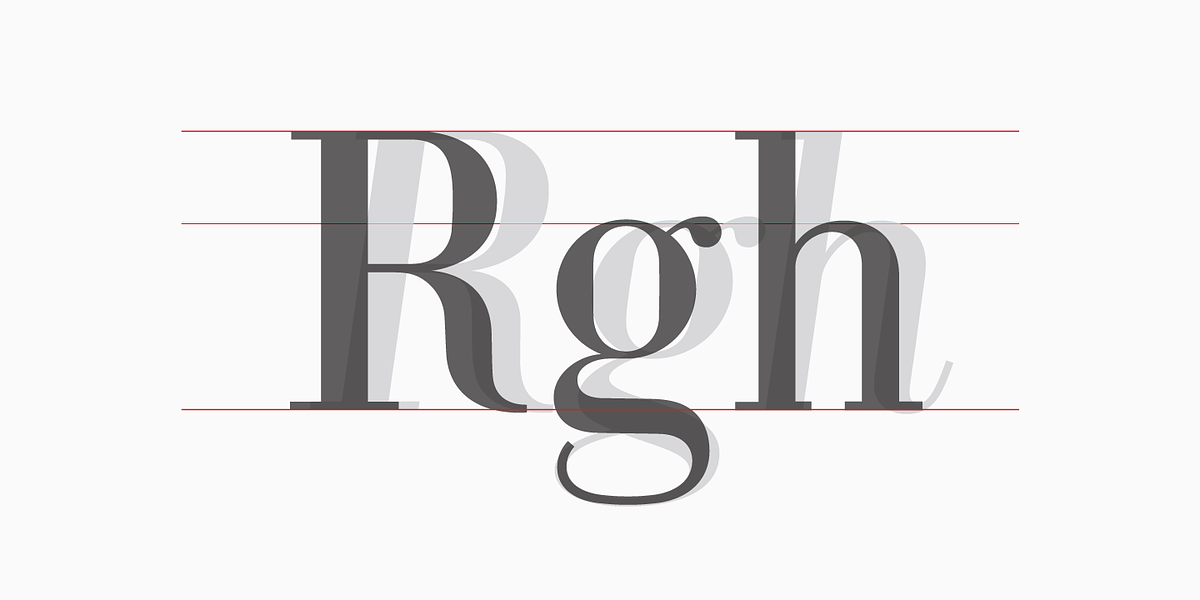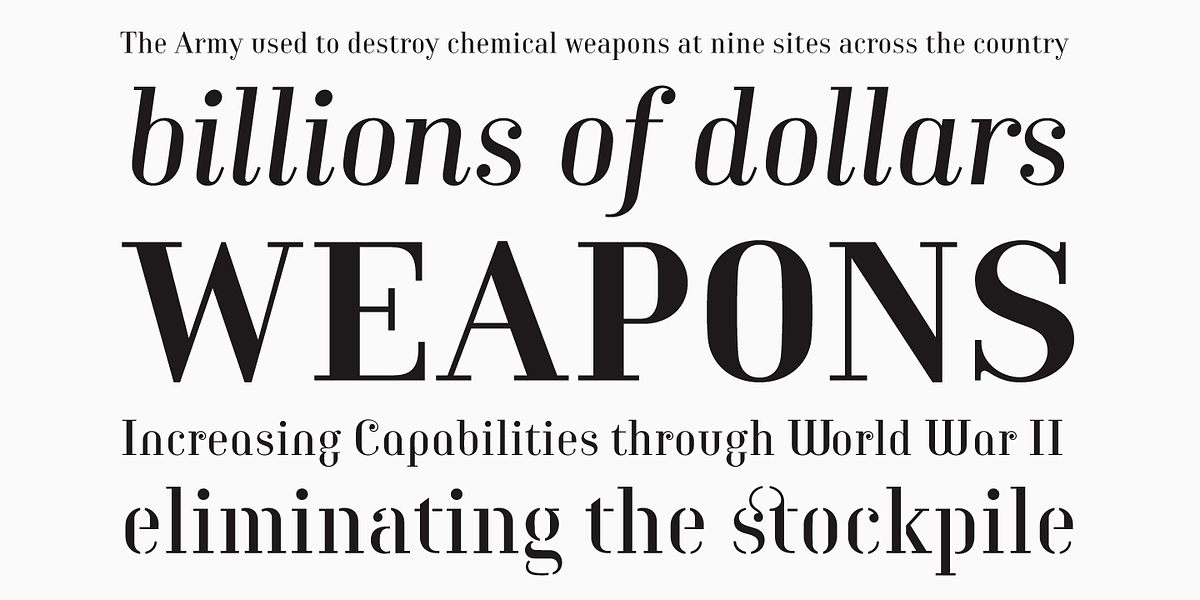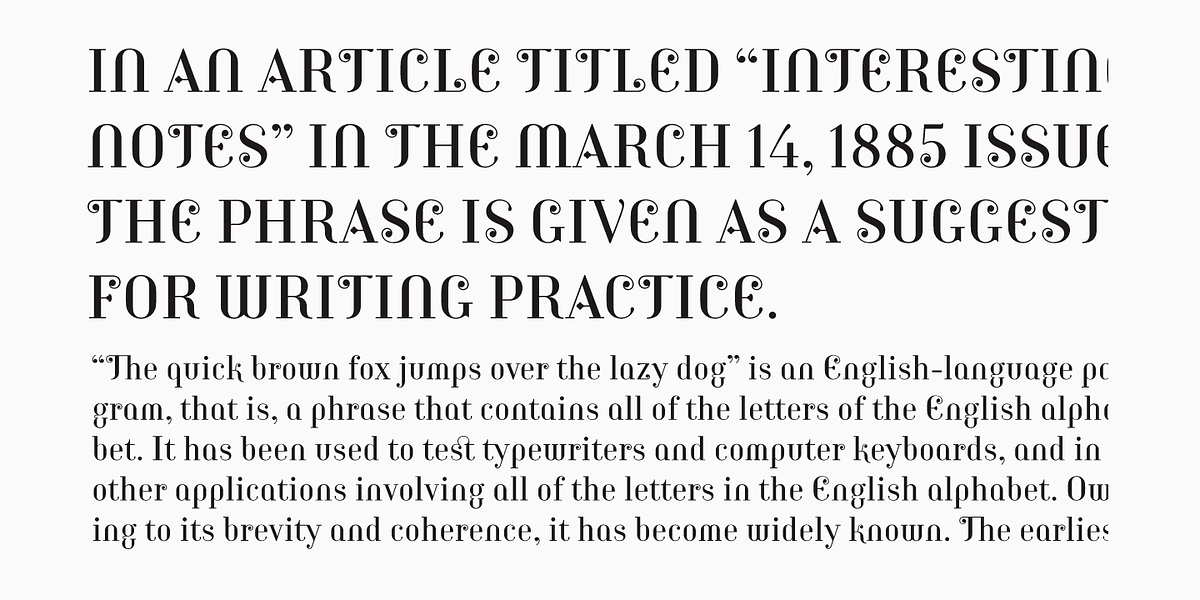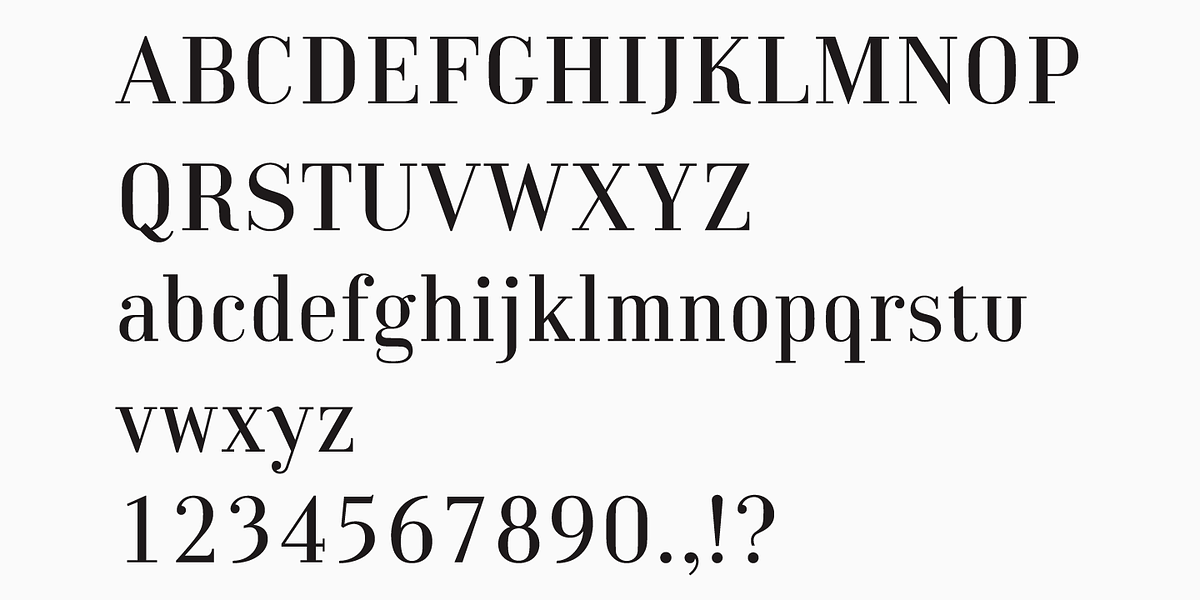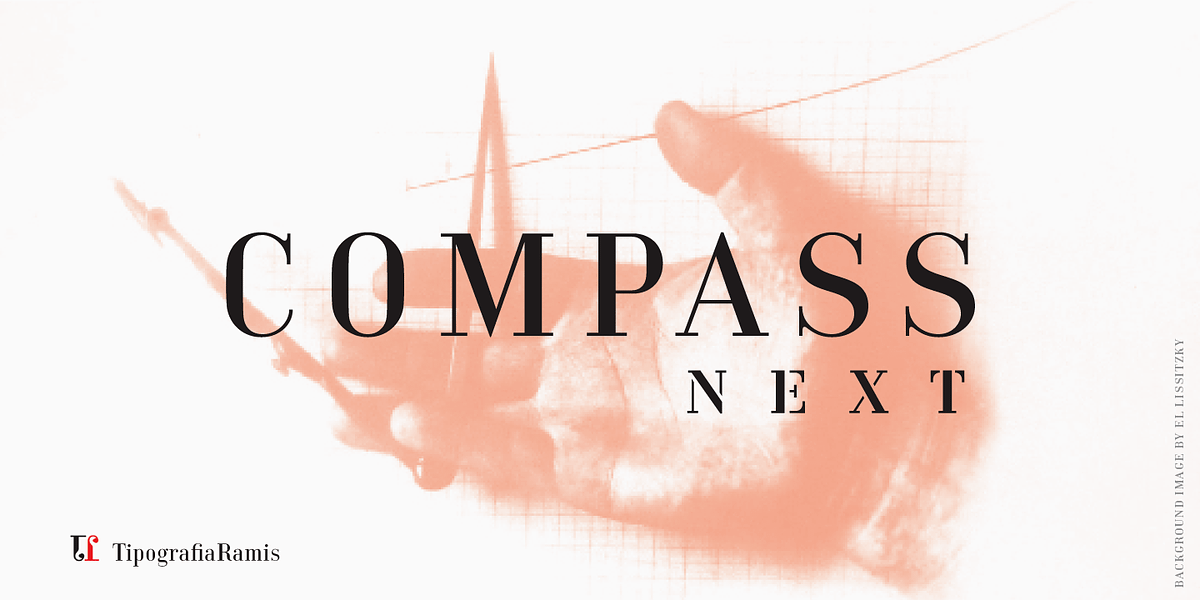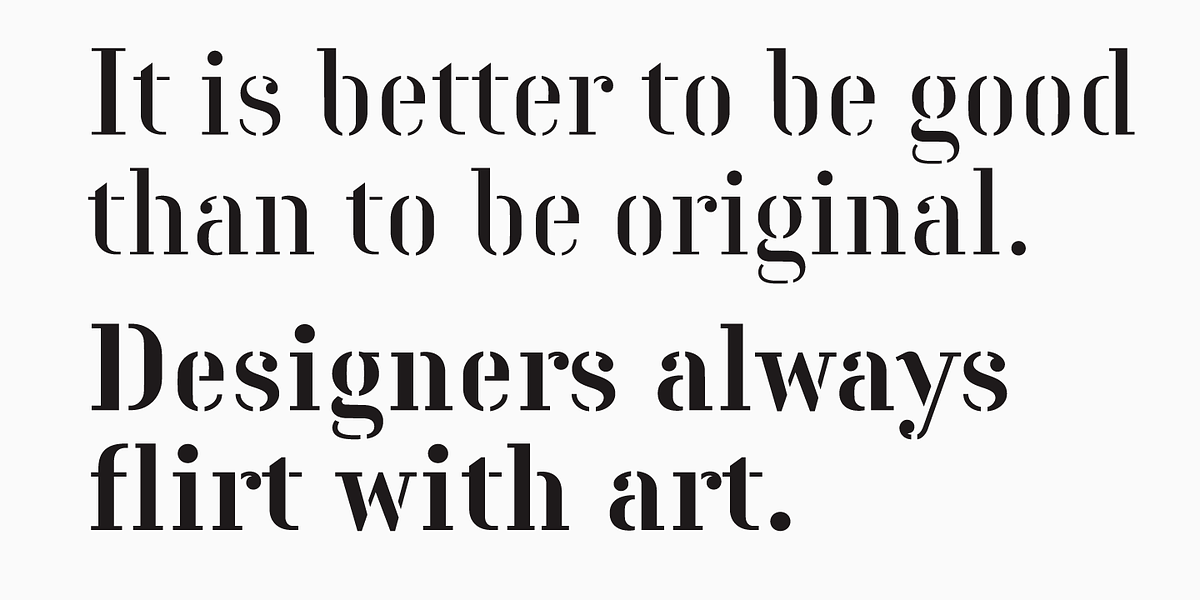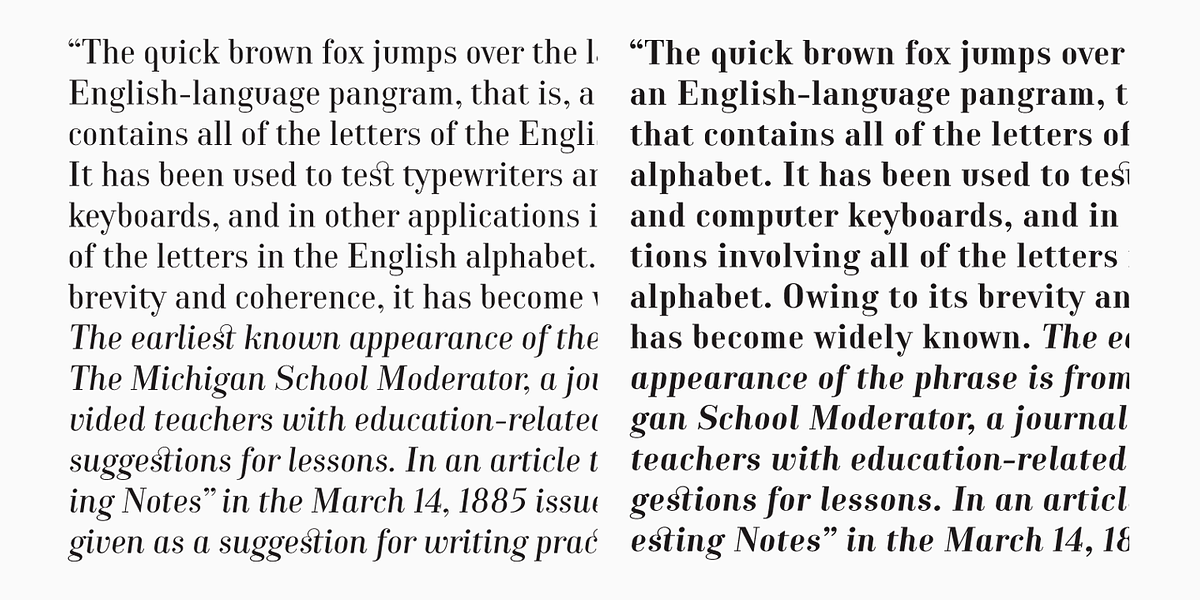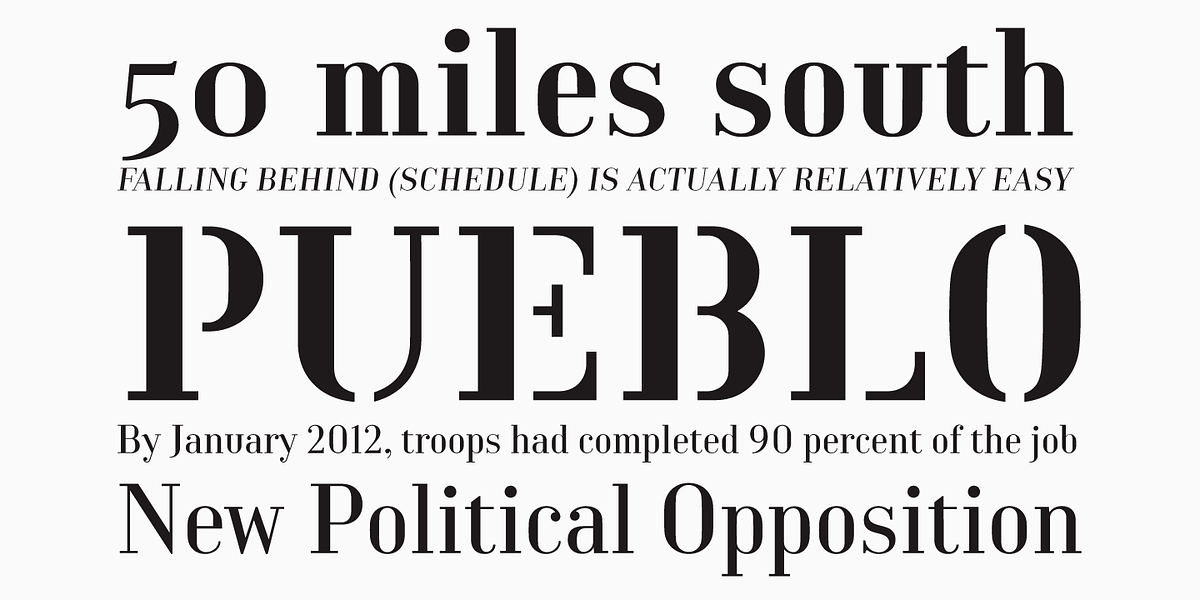
Compass Next
Compass Next is a serif typeface that belongs to the Didone category. It features a distinct geometric style, with all letters originally drawn using a compass and ruler. The typeface has been updated over time, adding Flourish Initials, Small Caps, and an additional Bold weight. Compass Next supports a wide range of Latin languages and is available in OpenType format.